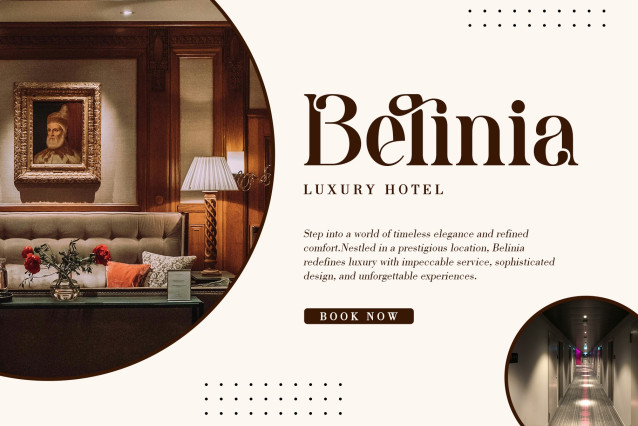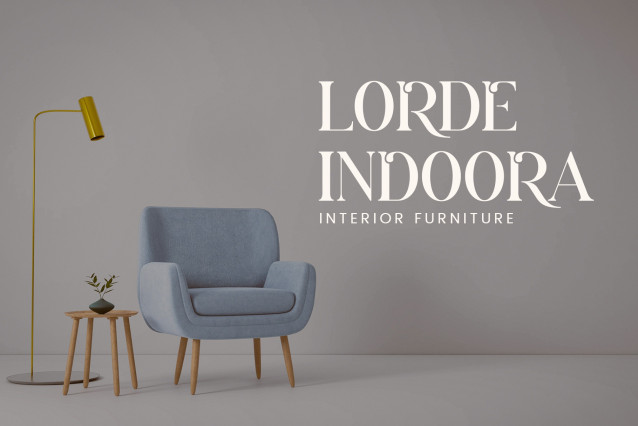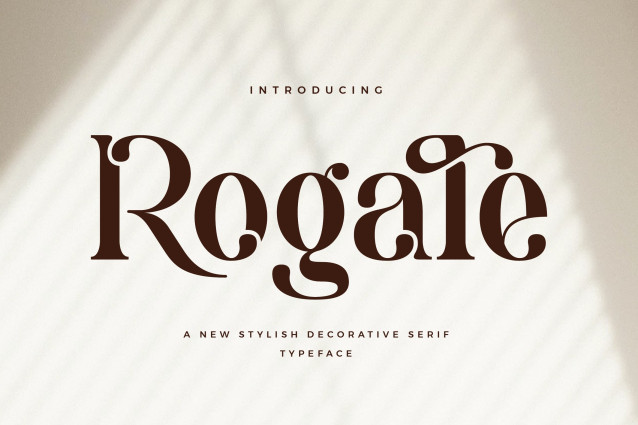
Rogale – Stylish Decorative Serif Font
Rogale Stylish Ligature Typeface, inspired by the famous minimalist logo perfect for the purposes of designing templates, brochures, videos, advertising branding, logos and more.
– Ligatures